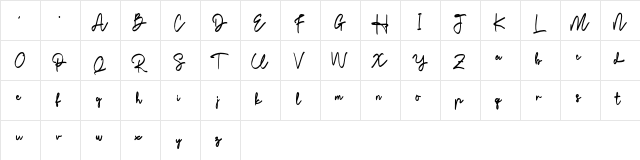
DarkLand Regular
| Foundry | Diditype std |
| Designer | Diditype |
Design Context for DarkLand Typeface
DarkLand is a composed and adaptable typeface that performs quietly and consistently across a wide range of design contexts.